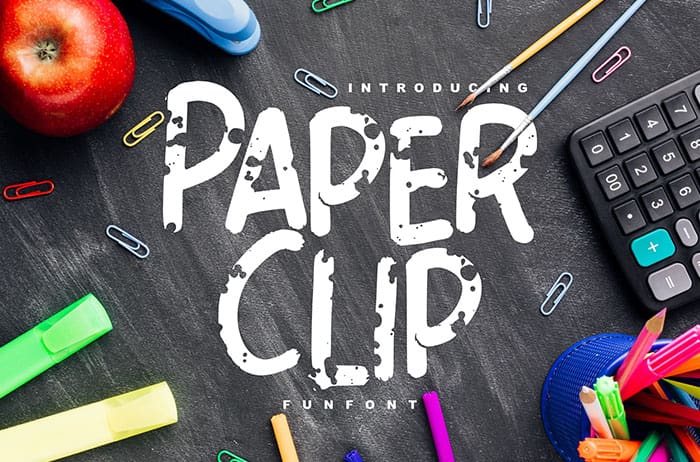
Paper Clip Decorative Font
Paper Clip is a decorative font featuring imperfect letters. Use it for any design project that requires a personalized appearance! Thanks to Vunira for sharing this font. Take a look at this portfolio for more of his stunning fonts.